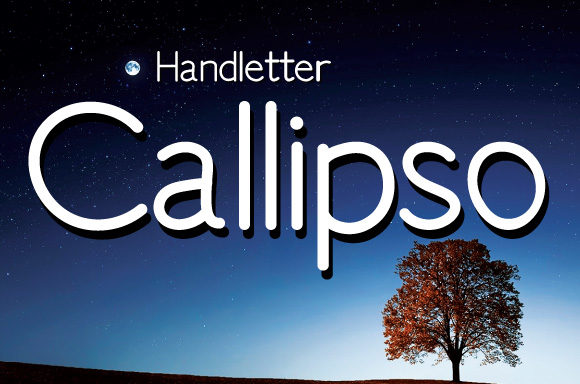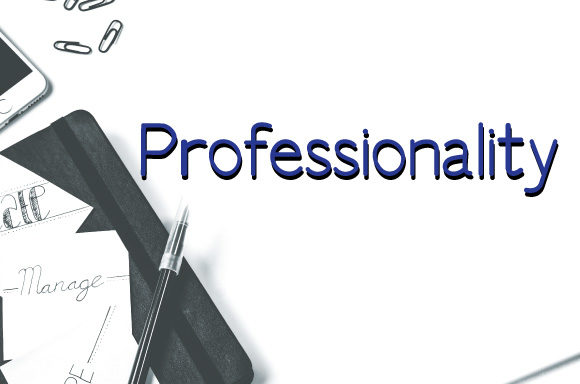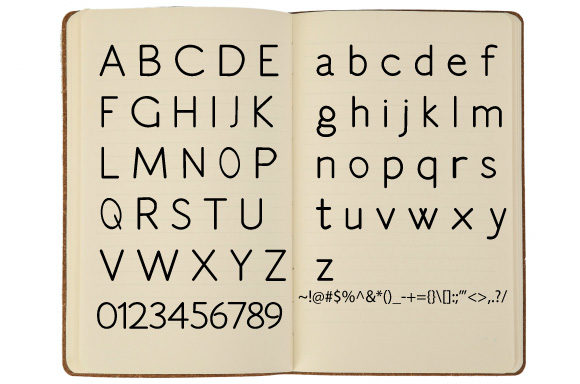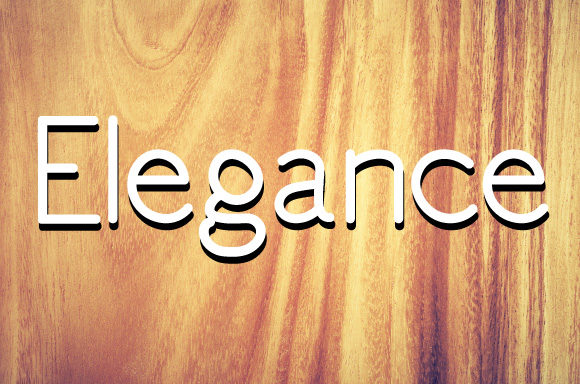
Discover the Versatility of Callipso Font: A Clean and Casual Sans Serif
Are you on the hunt for a font that embodies simplicity, elegance, and versatility? Look no further than Callipso Font, a casual and clean sans serif font designed to elevate your branding, packaging, and design projects. In this article, we’ll dive into the world of Callipso Font, exploring its features, uses, and benefits for designers and crafters alike.
What is Callipso Font?
Callipso Font is a modern sans serif font that boasts a clean and casual aesthetic. Its sleek lines, rounded edges, and balanced proportions make it an excellent choice for a wide range of applications. Whether you’re working on a branding campaign, product packaging, or a creative project, Callipso Font is sure to impress.
Key Features of Callipso Font
• Clean and Simple Design: Callipso Font features a minimalist design that exudes elegance and sophistication.
• Casual and Friendly Feel: The font’s rounded edges and smooth curves give it a warm and approachable feel.
• Sans Serif: The absence of serifs makes Callipso Font highly legible, even at small sizes.
• Versatile: This font is suitable for a wide range of applications, from branding and packaging to digital and print media.
Uses of Callipso Font
Callipso Font is an incredibly versatile font that can be used in various design projects, including:
• Branding: Create a lasting impression with Callipso Font, perfect for logos, business cards, and letterheads.
• Product Packaging: Elevate your product packaging with a clean and modern font that showcases your brand’s personality.
• Invitations: Make your invitations stand out with Callipso Font’s elegant and sophisticated design.
• Quotations: Add a touch of style to your quotes and testimonials with this beautiful font.
• T-Shirts and Merchandise: Callipso Font is perfect for designing t-shirts, hoodies, and other merchandise.
• Labels and Posters: Use Callipso Font to create eye-catching labels and posters that grab attention.
• Logos: Create a stunning logo with Callipso Font that represents your brand’s values and mission.
Benefits of Using Callipso Font
So, why choose Callipso Font for your design projects? Here are some benefits that make it an excellent choice:
• Ease of Use: Callipso Font is incredibly easy to use, even for those without extensive design experience.
• High Legibility: The font’s clean design and sans serif style ensure high legibility, even at small sizes.
• Customizable: Callipso Font can be easily customized to fit your brand’s unique style and personality.
• Time-Saving: With Callipso Font, you can save time and effort in your design process, allowing you to focus on other creative aspects.
Tips for Using Callipso Font Effectively
To get the most out of Callipso Font, here are some tips to keep in mind:
• Pair with Other Fonts: Experiment with pairing Callipso Font with other fonts to create a unique and visually appealing design.
• Adjust Font Sizes: Play with different font sizes to create visual hierarchy and emphasis in your design.
• Use Color Wisely: Choose colors that complement Callipso Font and enhance your design’s overall aesthetic.
Callipso Font is a versatile and elegant sans serif font that’s perfect for designers and crafters looking to elevate their design projects. With its clean design, casual feel, and high legibility, this font is suitable for a wide range of applications. By incorporating Callipso Font into your design workflow, you’ll be able to create stunning visuals that capture your audience’s attention. So why wait? Discover the power of Callipso Font and take your designs to the next level!